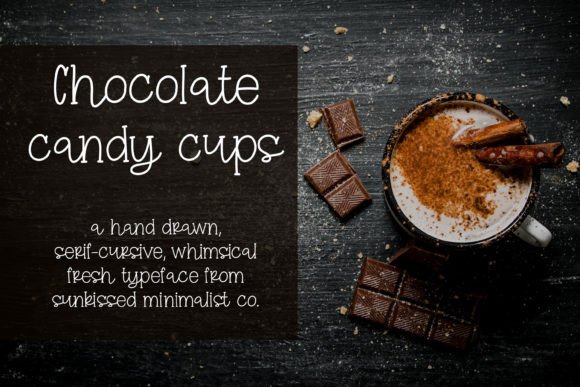
Introducing Chocolate Candy Cups Font: The Perfect Blend of Serif and Cursive
Are you looking for a font that can add a touch of whimsy and freshness to your designs? Look no further than Chocolate Candy Cups Font. This hand-drawn font combines the charming qualities of a serif print with the ease of a cursive typeface, making it perfect for a multitude of different projects.
What is Chocolate Candy Cups Font?
Chocolate Candy Cups Font is a unique and versatile font that blends the best of both worlds. It has the classic look of a serif font, with the added flair of a cursive typeface. The result is a font that is both elegant and playful, making it perfect for a wide range of applications.
Whether you’re designing a logo, creating a brochure, or simply looking for a font to use on your website, Chocolate Candy Cups Font is a great choice. Its whimsical and fresh feel makes it perfect for projects that require a bit of personality and flair.
Characteristics of Chocolate Candy Cups Font
So, what makes Chocolate Candy Cups Font so special? Here are just a few of its key characteristics:
- Hand-drawn: Chocolate Candy Cups Font is a hand-drawn font, which gives it a unique and personal touch.
- Serif and cursive: This font combines the best of both worlds, with the classic look of a serif font and the ease of a cursive typeface.
- Whimsical and fresh: Chocolate Candy Cups Font has a playful and youthful feel, making it perfect for projects that require a bit of personality.
- Versatile: This font can be used for a wide range of applications, from logos and brochures to websites and social media graphics.
Uses for Chocolate Candy Cups Font
So, what can you use Chocolate Candy Cups Font for? The possibilities are endless! Here are just a few ideas to get you started:
- Logos and branding: Chocolate Candy Cups Font is perfect for creating unique and memorable logos and branding materials.
- Brochures and flyers: This font is great for creating eye-catching brochures and flyers that will grab attention.
- Websites and blogs: Chocolate Candy Cups Font can add a touch of personality and whimsy to your website or blog.
- Social media graphics: This font is perfect for creating social media graphics that will stand out from the crowd.
- Packaging and labels: Chocolate Candy Cups Font can add a touch of elegance and sophistication to packaging and labels.
Tips for Using Chocolate Candy Cups Font
Here are a few tips for getting the most out of Chocolate Candy Cups Font:
- Use it sparingly: While Chocolate Candy Cups Font is a beautiful font, it can be overwhelming if used too much. Use it sparingly to add emphasis and personality to your designs.
- Experiment with different sizes and colors: Don’t be afraid to experiment with different sizes and colors to find the perfect combination for your design.
- Pair it with other fonts: Chocolate Candy Cups Font pairs well with a variety of other fonts. Experiment with different combinations to find the perfect pairing for your design.
In conclusion, Chocolate Candy Cups Font is a unique and versatile font that can add a touch of whimsy and freshness to your designs. Its hand-drawn, serif, and cursive qualities make it perfect for a wide range of applications, from logos and brochures to websites and social media graphics.
Whether you’re a designer, entrepreneur, or simply someone looking for a font to use on your website, Chocolate Candy Cups Font is a great choice. So why not give it a try and see how it can elevate your designs?
- What is Chocolate Candy Cups Font? Chocolate Candy Cups Font is a hand-drawn font that combines the charming qualities of a serif print with the ease of a cursive typeface.
- What can I use Chocolate Candy Cups Font for? Chocolate Candy Cups Font can be used for a wide range of applications, including logos, brochures, websites, social media graphics, packaging, and labels.